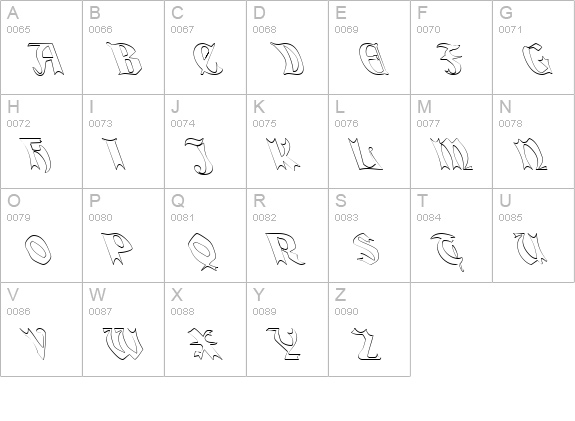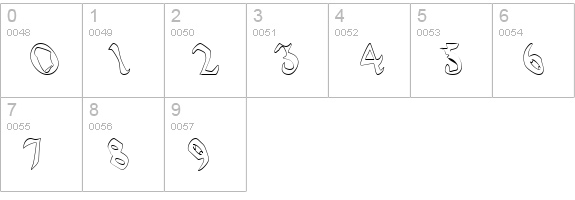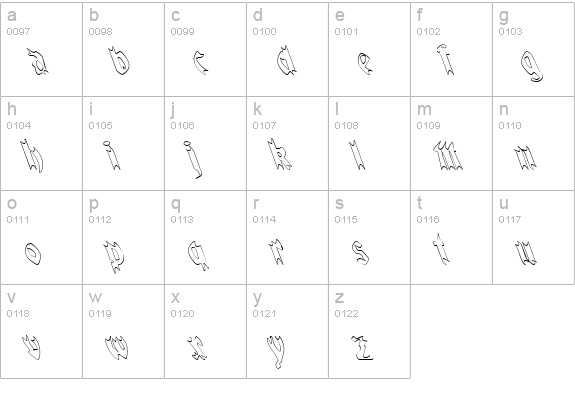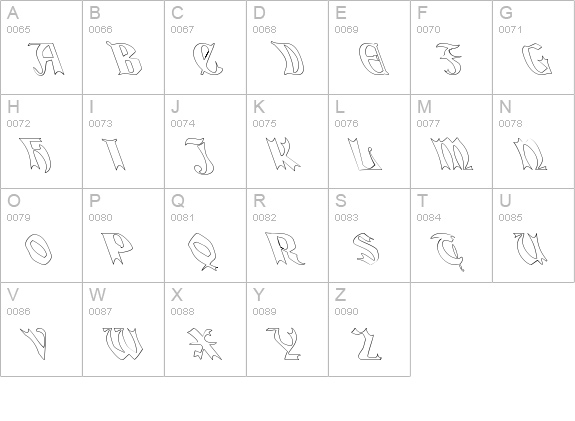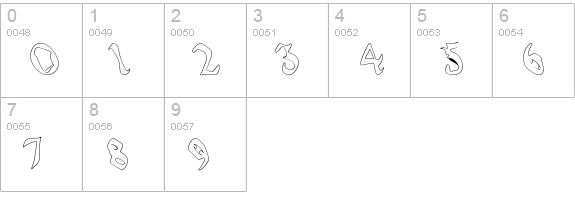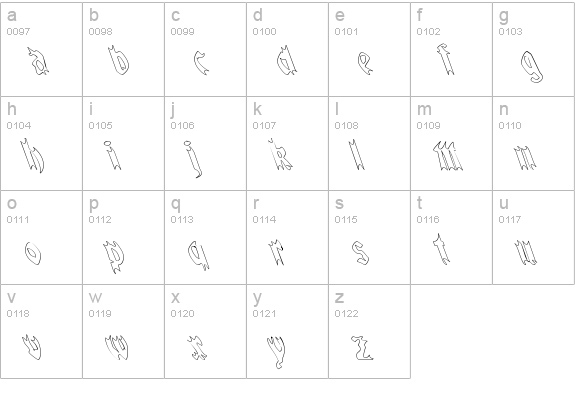
QuaelGothicHollowLefty Font Details
QuaelGothicHollowLefty is a captivating and unique font that beautifully combines gothic elements with a modern twist. Its intricate and ornate design instantly grabs attention, making it perfect for eye-catching headlines, logos, and posters. This font features a distinctive hollowed-out style, adding a touch of elegance and sophistication to any project. The carefully crafted curves and sharp edges create a visually striking contrast, making QuaelGothicHollowLefty a true standout in the world of typography. What sets QuaelGothicHollowLefty apart is not only its stunning appearance but also its versatility. Whether you're designing for a fantasy-themed event, a dark and mysterious brand, or simply looking to add a touch of intrigue to your designs, this font is the ideal choice. Best of all, QuaelGothicHollowLefty is completely free, offering you endless creative potential without breaking the bank. You can easily download this captivating font at FontsMarket.com, where it is freely available for personal and commercial use. So, why wait? Unleash your creativity and make a lasting impression with QuaelGothicHollowLefty font. Download it today and let your designs shine with its unique and mesmerizing charm.